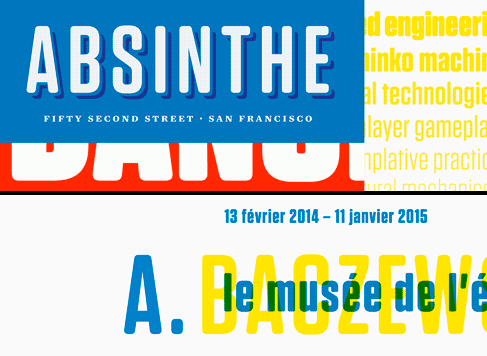
Tungsten Rounded Font Family
From Tungsten, a typeface that’s disarming instead of pushy, comes a soft-shouldered cousin with an unexpected personality. The rounded sans serif is a typographic chameleon. It can look relaxed and natural, as if its soft edges have been weathered by erosion; it can be cool and detached, machined with the accuracy of a precision part, or stamped with the indifference of a license plate. Its weight can affect its tone dramatically, changing the mood from the no-frills immediacy of a rubber stamp to the fleshy abundance of an over-inked printing plate. It can be burly and jovial, youthful, high-tech, wry, earnest, or energetic, all voices explored by Tungsten Rounded.
Across six styles from Light to Black, Tungsten Rounded varies the relationship between the weights of letters and the radius of their curves, to create a distinctively different personality in each style. Its lighter weights have an engineered quality, reminiscent of the engraved markings on scientific instruments, or the rounded grooves of lettering templates. As the font gets heavier, its middle weights take on a more direct and dynamic tone, moving from upbeat pop to editorial gravitas. Its Black weight is the most malleable, solemn when letterspaced and exuberant when tightly tracked, moods that are both improved by a collision detection feature in the fonts that improves their texture at large sizes.